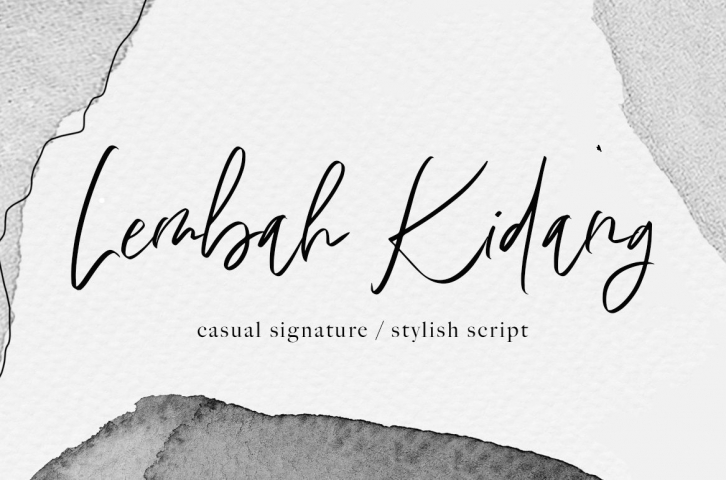
Lembah Kidang is a great font that was designed by Agniardi. Imagine the amount of combinations you can create using this font! The archive is 12.27 MB and it was released on May 28, 2020. Lembah Kidang looks beautiful on wedding invitations, greeting cards, logos, posters, labels, t-shirt designs, logos, business cards and is perfect for use in ink or watercolor works, fashion, magazines, packaging and food menus, children's books and more!